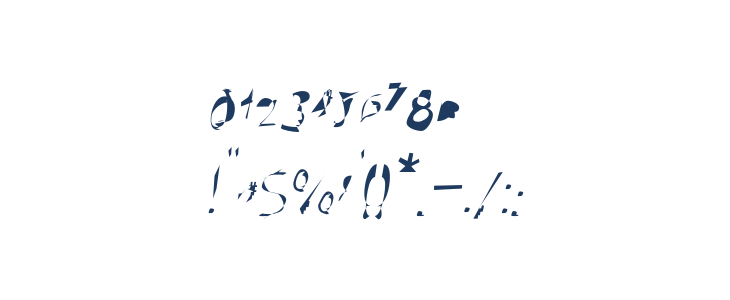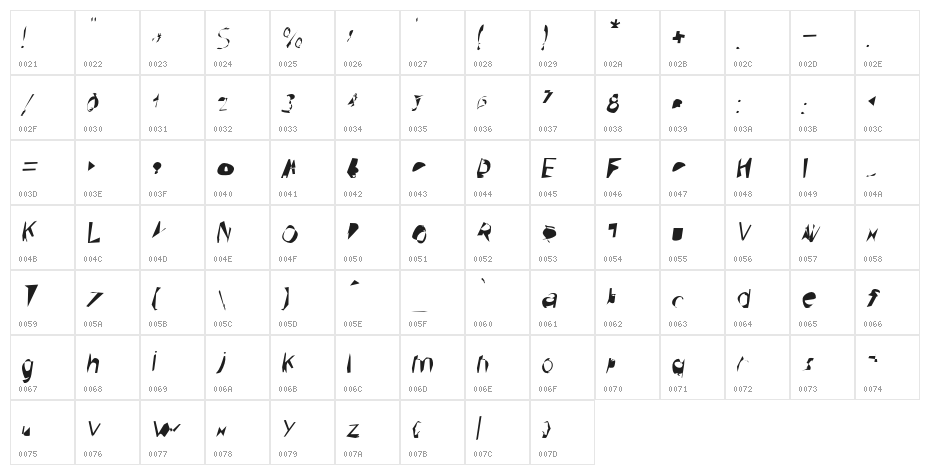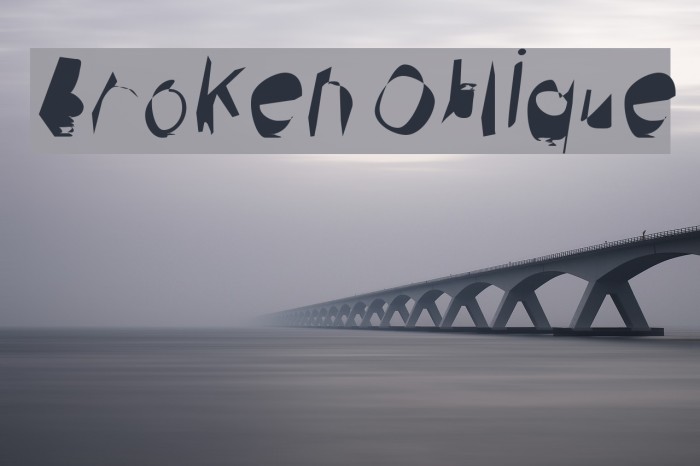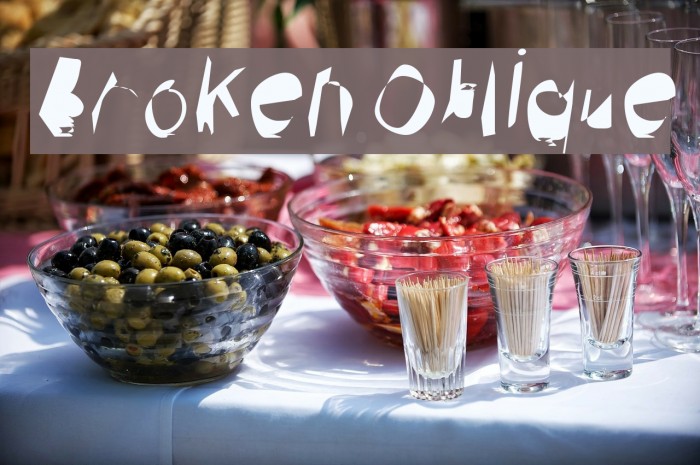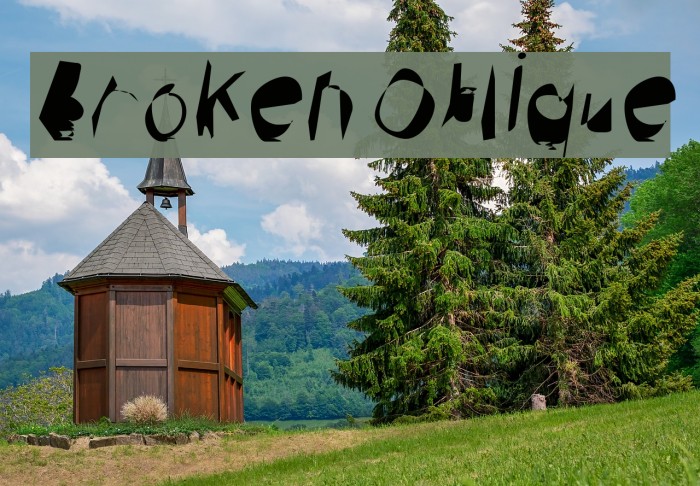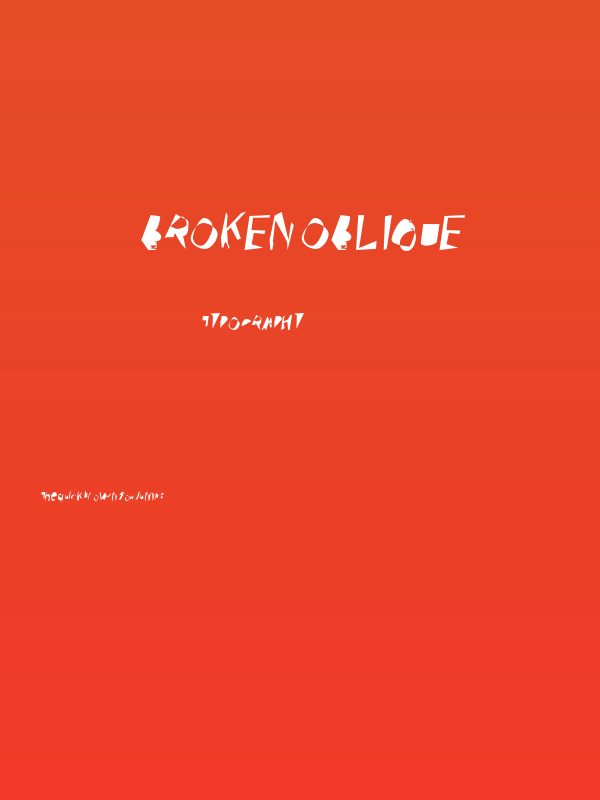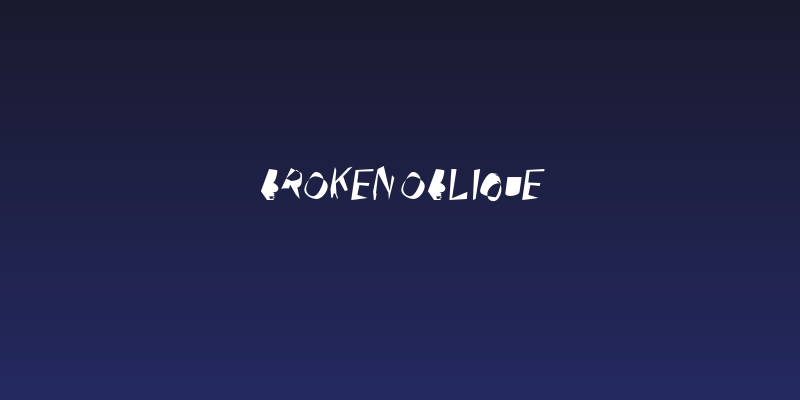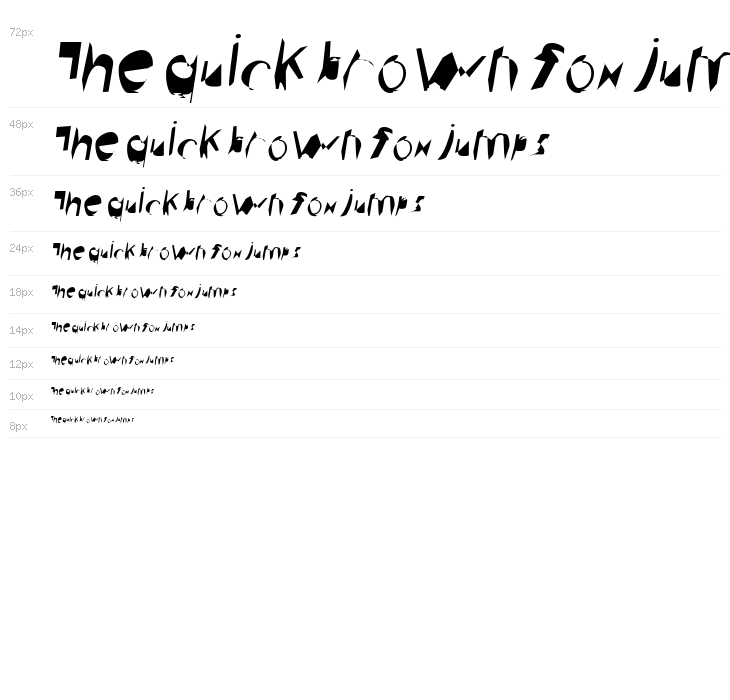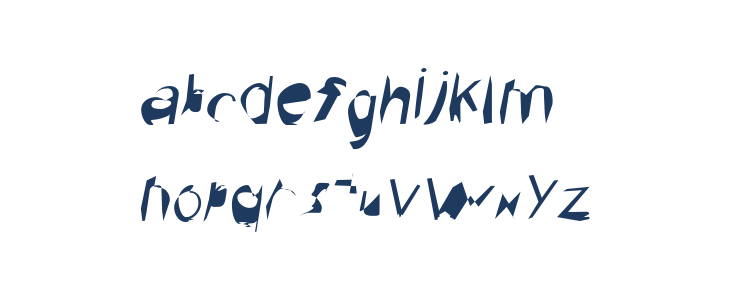
Broken Oblique Font
Broken Oblique Description
This font features a highly stylized and fragmented design, with each character appearing as if it has been shattered or sliced. The letters are bold and oblique, giving a sense of dynamic movement and energy. The strokes are irregular, with sharp angles and varying thickness, creating a chaotic yet intriguing visual effect. This font is not suitable for body text due to its complexity, but it makes a strong impact in display settings. The unique style is reminiscent of abstract art, making it ideal for projects that require a bold, unconventional look.
Overall StyleModern, Abstract
Proposed ProjectsIdeal for album covers, posters, and branding that requires a bold, artistic statement.